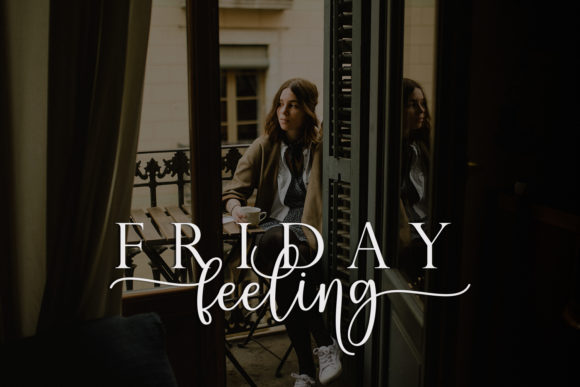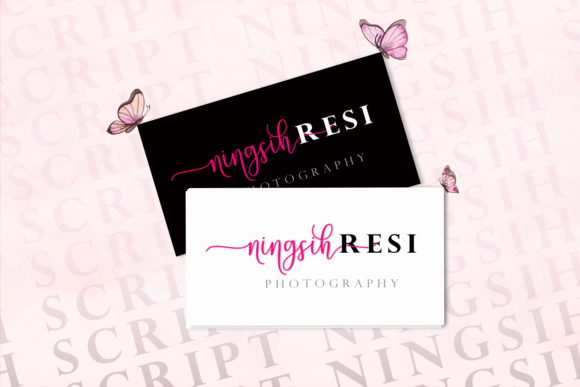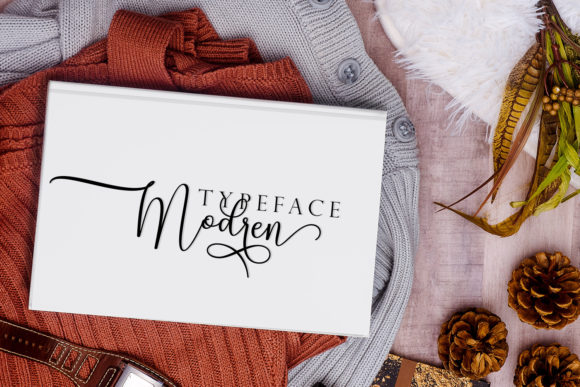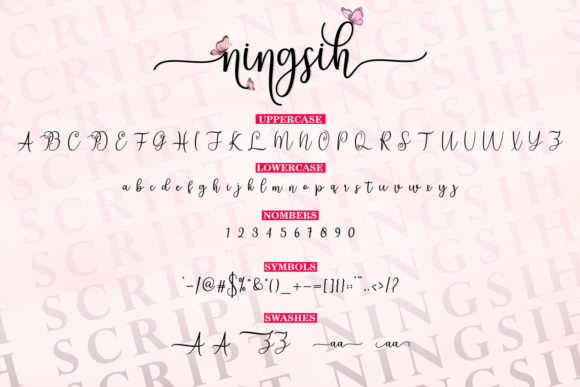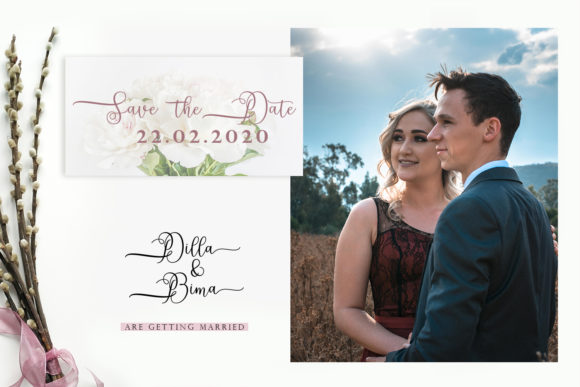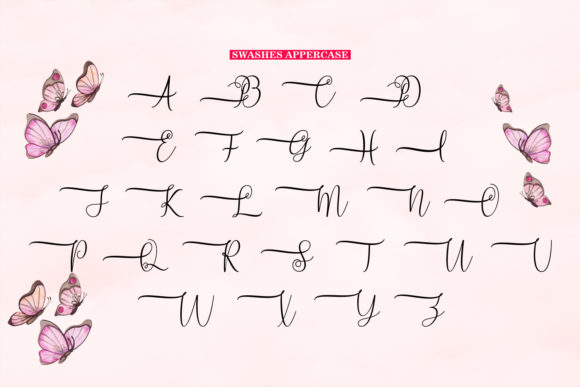
Introduction to Ningsih Font
Have you ever stumbled upon a font that makes you go weak in the knees? For designers, this moment of serendipity is a rare treasure, and it’s exactly what happens when you come across the enchanting Ningsih Font. Its playful and romantic charm has the power to transform any design project into a true masterpiece.
Imagine having access to a high-quality design resource that can elevate your creative project to new heights. With Ningsih Font, you can achieve just that. This stunning script font is available for free download, making it an excellent addition to any designer’s toolkit. Whether you’re working on a project that requires a touch of whimsy or a dash of elegance, Ningsih Font is the perfect solution.
Key Features of Ningsih Font
- Unique and creative design ideal for various projects and designs.
- High-quality font with transparent background for seamless integration.
- Perfect for use in creative projects, such as graphic design, digital art, and more.
- Unique characteristics include a modern and elegant feel, making it suitable for various design needs.
Honest Review: Ningsih Font
I recently stumbled upon the Ningsih Font, and I’m excited to share my thoughts on this design resource. As a designer, I’m always on the lookout for high-quality fonts that can elevate my creative projects.
One of the things that stands out about the Ningsih Font is its beautiful, elegant script. The font is perfect for creating a sophisticated and romantic feel in your designs. It’s also available for free download, making it a great resource for designers on a budget.
- ✨ Beautiful, elegant script
- ⚠️ Limited font styles and weights
- ⚠️ May not be suitable for bold or modern designs
Overall, I’m impressed with the Ningsih Font. It’s a great addition to any designer’s toolkit, and I’m happy to recommend it for creative projects that require a touch of elegance and sophistication.
Ningsih Font
Common Use Cases for Ningsih Font
The Ningsih Font is suitable for a variety of design projects, including logos, business cards, and brochures. Its high-quality design makes it perfect for creative projects where attention to detail is crucial.